Today we want to present you a collection of fonts that can diversify your design and you will be surprised how they take advantage of your needs. These brush stroke fonts should be in every designer’s portfolio.
All these brush stroke fonts has been crafted by professional designers, looks great and are in the best quality no matter it is free or premium item. You can diversify them with other fonts, such as script, serif, sans-serif and so on. Feel a good mood and enjoy.
Freak Funky Brush Script Font
It is a fancy brush script font with rough brush stroke, slant and fun character with a bit of ligatures and bit of alt lowercase. Perfect for logo designs, social media, movie titles, books titles, a short text and etc.
Bigteeth Handwritten Brush Font
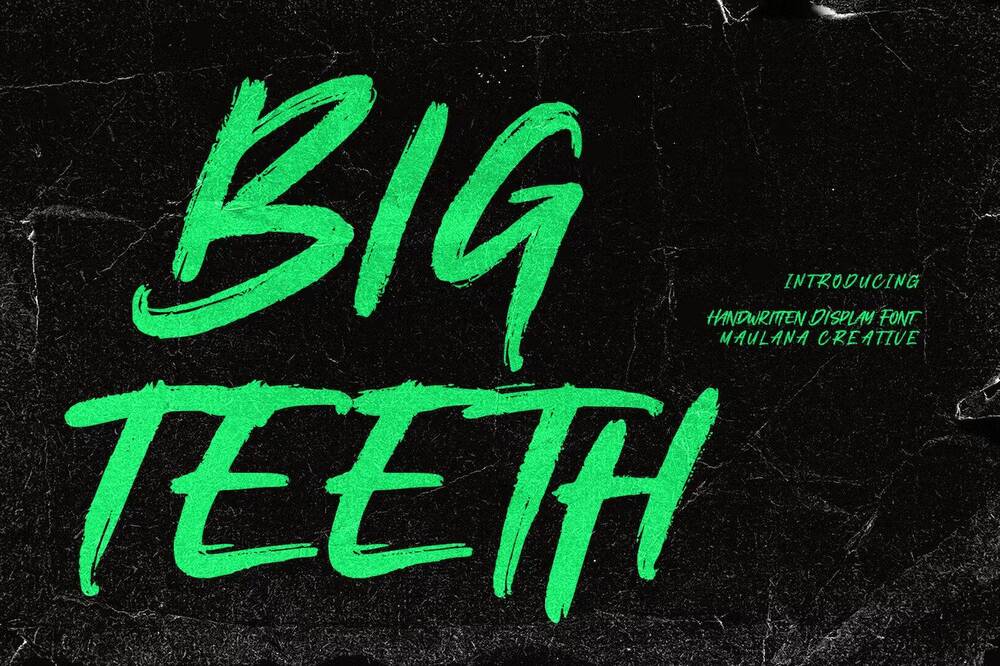
It is a horror vibes handwritten font with slanted medium rough brush stroke, fun character. To give you an extra creative work. Ideal for logo designs, social media, movie titles, books titles, posters, magazines and etc.
Holingston Font
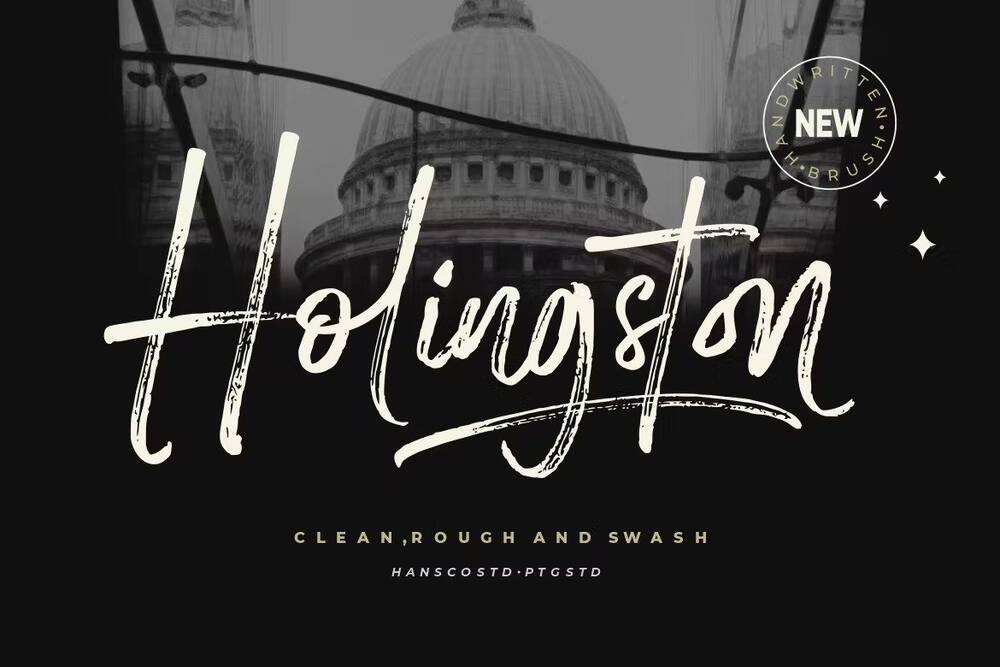
It is a handwritten brush script that is written casual and naturally. Ideal for blog titles, posters, wedding elements, t-shirts, clothing, book covers and etc.
Groshrock – Freestyle Brush
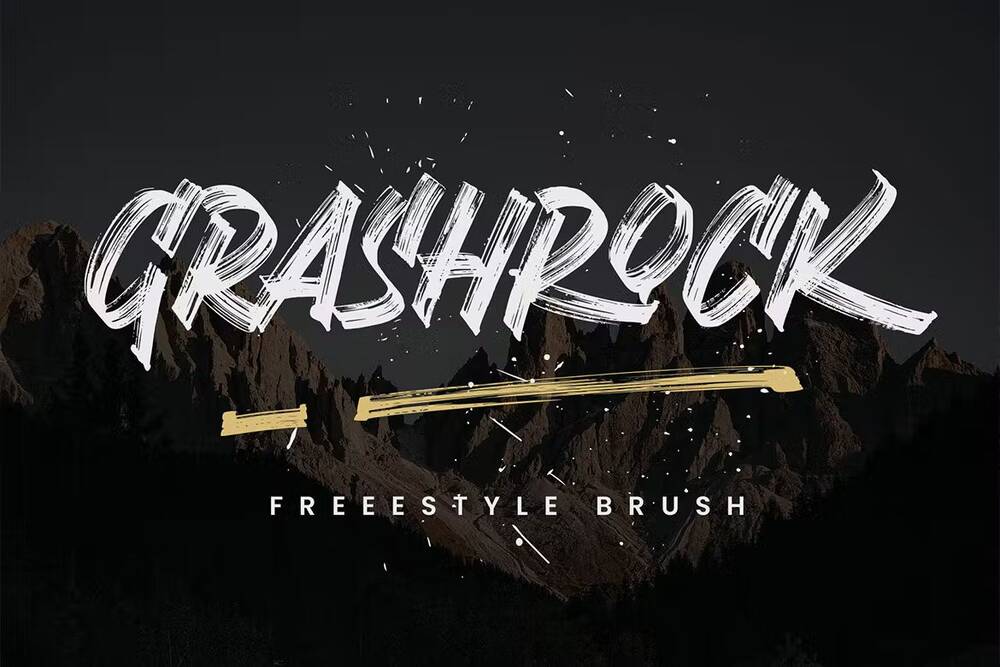
It is a fast font, with an aggressive motion of the brush strokes so good for designs such as shirts, cards, flyers, quotes, logotype, books, decals and etc.
Spyckers Handwritten Brush Font
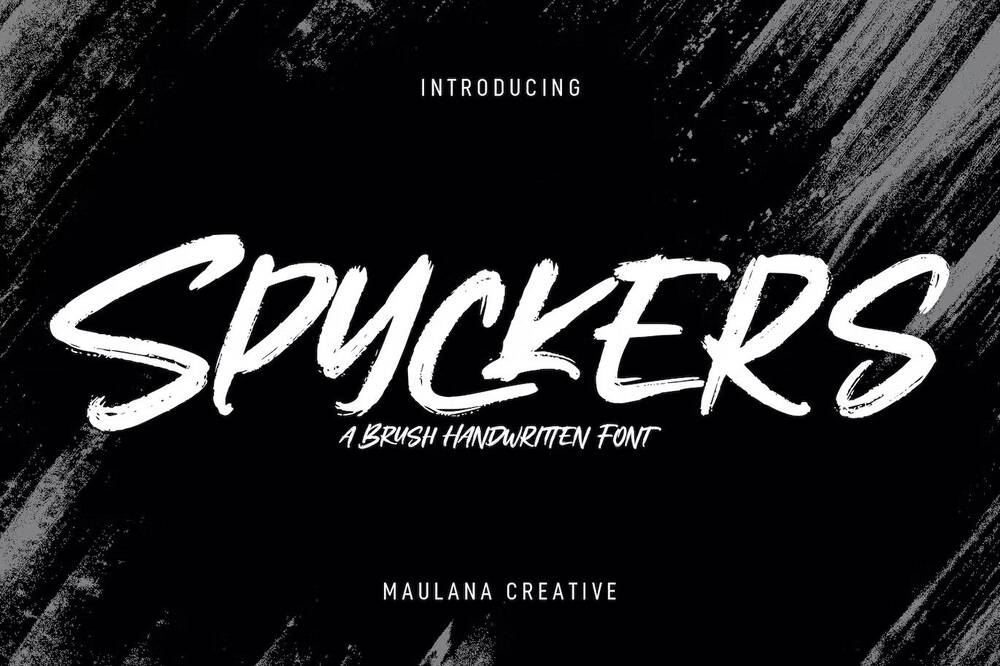
It is an expressive handwritten brush font with bold rough brush stroke, fun character with a bit of ligatures and alternates. So good for posters, covers, titles, fast text and etc.
Street Walks Brush Script Font
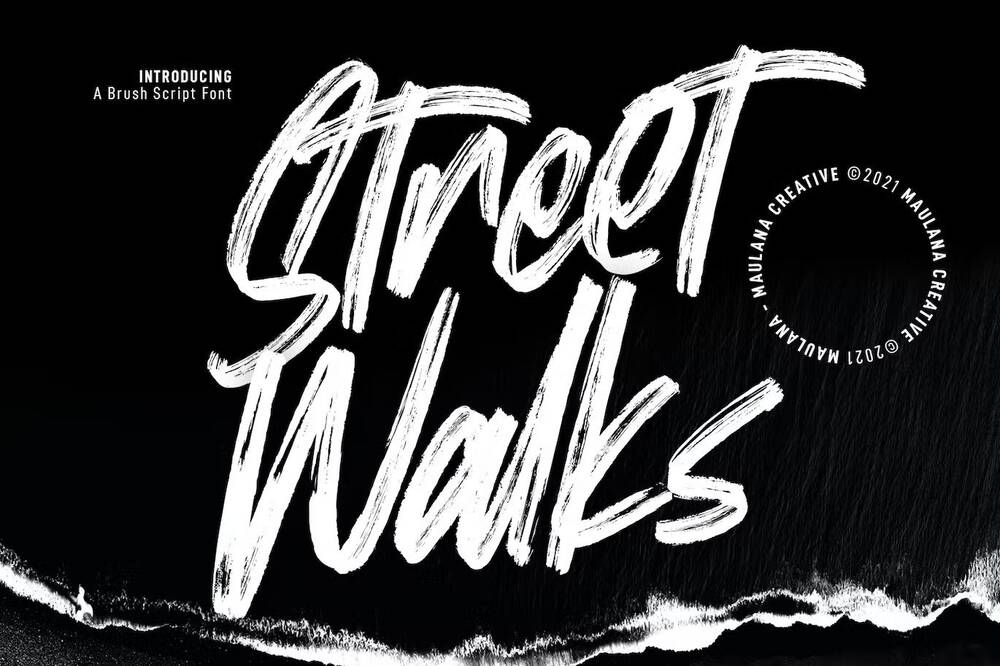
is a handwritten script display font with rough brush stroke, strong character with a bit of ligatures and alternates. To give you an extra creative work. So good for posters, covers, flyers, packaging and etc.
Malela Handwritten Brush Font
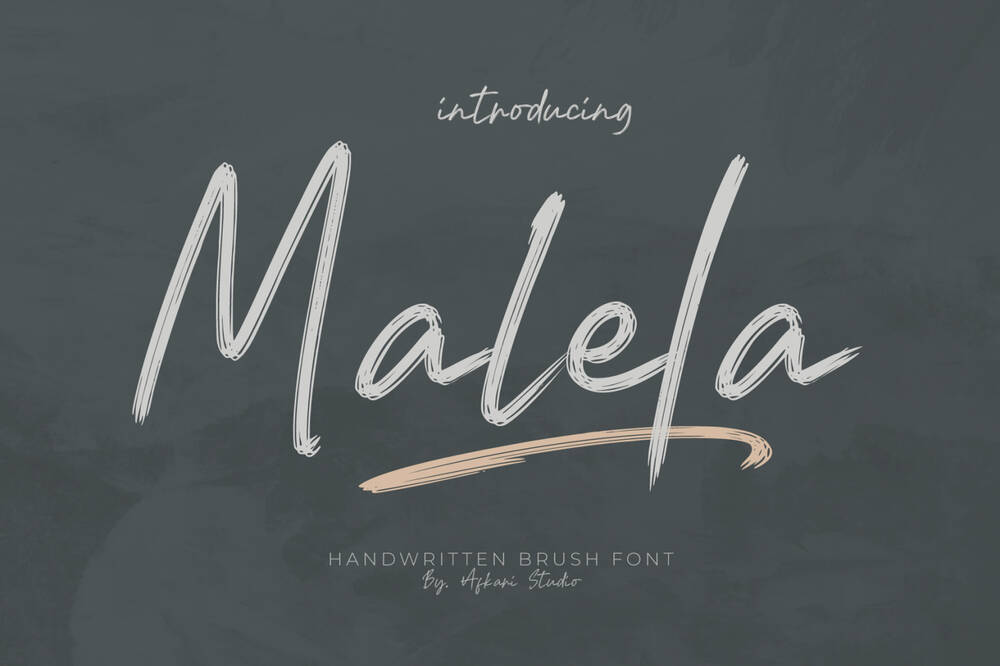
It is a natural handwritten brush font script that makes with natural line handwriting. This font is suitable for any branding of your design needs, wedding invitations, romantic projects and etc.
Superion Brush Font
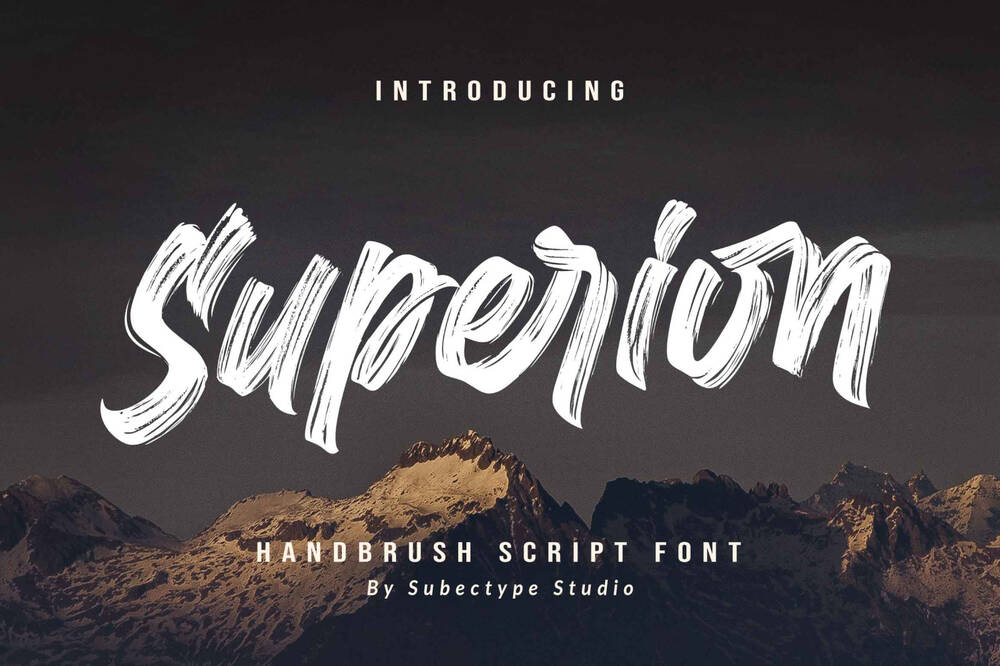
It is a supercharged brush font style, street-wise brush font bursting with energy. With extra attention to quick strokes and sharp details. This font is perfect for challenging jobs, titles, t-shirts, websites, hoodies, clothing and etc.
Brush King / Brush Font
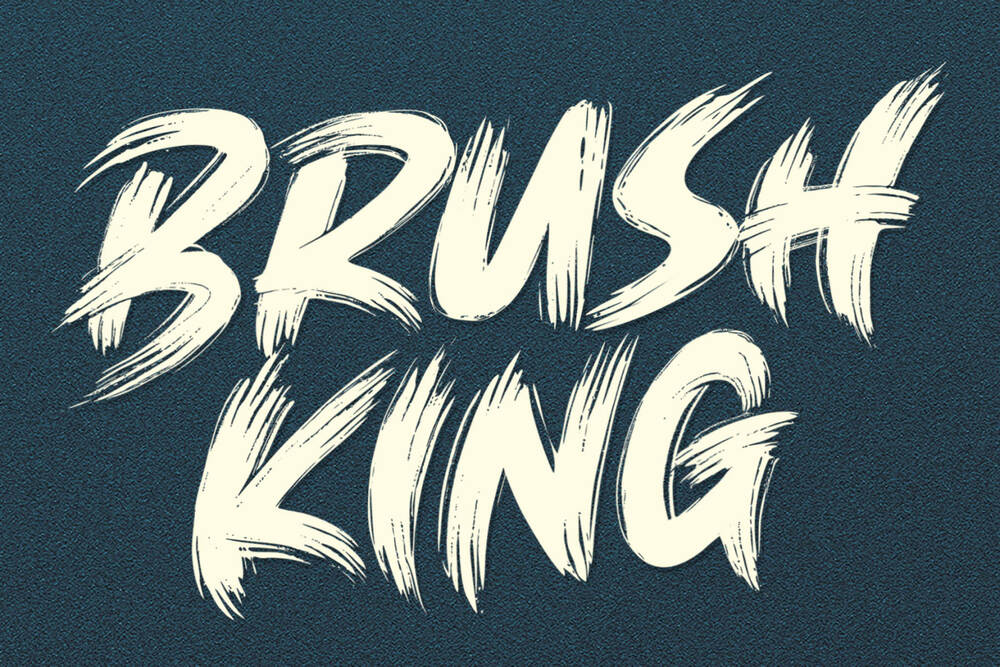
It is a supercharged brush font style, street-wise brush font bursting with energy. With extra attention to quick strokes and sharp details. Ideal for logos, apparel, quotes, product packaging and etc.
Free Stiverx Font
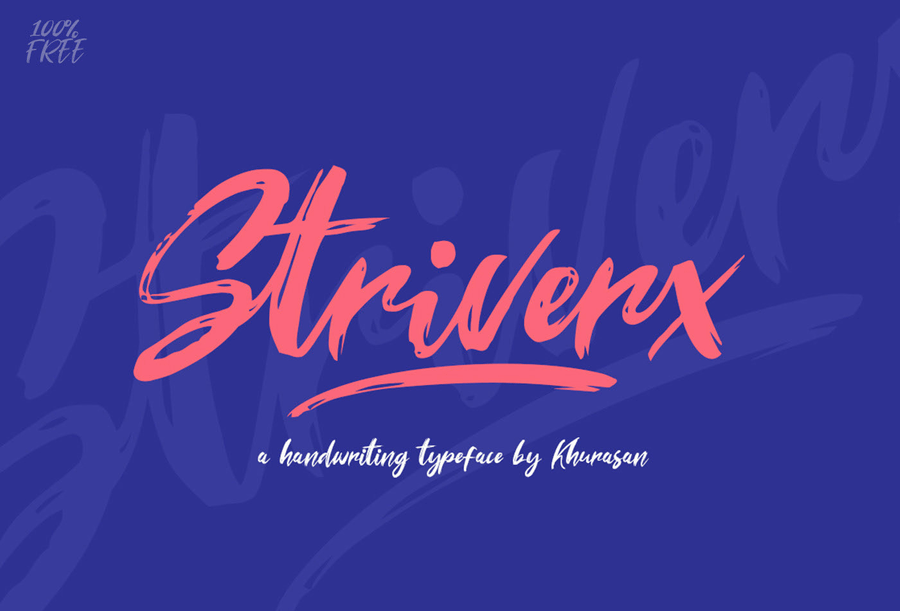
It is an eye-catching brush script font. It contains uppercase and lowercase letters, numbers, symbols and supports multilingual. Stiverx is ideal for ads, logos, branding, headlines, quotes, posters and etc.
Free Necks Font
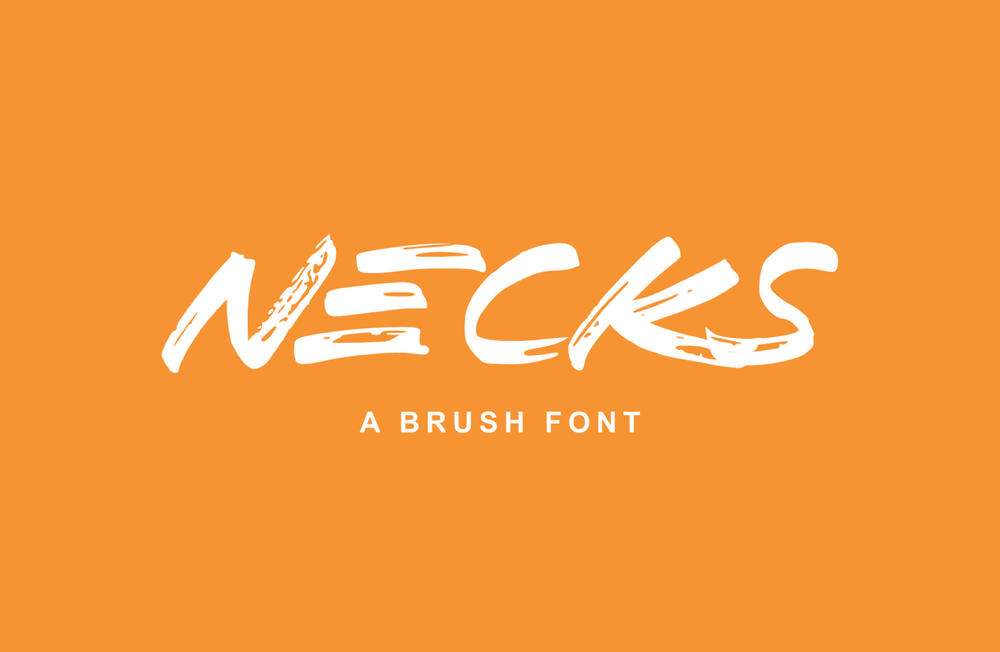
It is a free bold hand lettered display font. This highly legible brush font is great for a variety of creative projects such as posters, covers, titles, flyers, packaging and etc.
Free Andria Styluz Script Font
It is a free handwritten brush font for your design needs. Perfect for display, greeting cards, branding materials, business cards, quotes, wedding cards, logos, stationery, online marketing, magazines and etc.
Free Raventame Brush Font
It features an original handwritten brush style. It is ideal for boutique brands, photography logos & quotes, magazines, posters and etc.
Free Keypass Handbrush Font
It is a bold and innovative font which combines attractive curves with a fresh urban edge. Ideal for book covers, website headers, logos, flyers, clothing, branding and etc.
The Revengers Font
A Script brush font with authentic dry brush strokes drawn on paper. Perfect for logo designs, poster designs, social media, typographic quotes and etc.
Clawmark a Strong Bush Font
A powerful hand painted font you’ve been looking for. Each character is carefully crafted until the result is perfect. So good for story books, illustrations, comic books, t-shirts, posters, greeting cards, logos and etc.
Diswatika Font
It is a textured brush font with exclusive style that is great for vintage, old style, wedding, movie, game, magazines and etc.
Cashking Brush Script Font
It is an expressive brush script font with regular rough brush stroke, fun character with some of ligatures and extra swash. Perfect for posters, flyers, magazines, covers and etc.
Elemantors Brush Stroke Script Typeface
Give your designs an authentic handcrafted feel.This font is perfectly suited to signatures, stationery, logos, typography quotes, magazines or book covers.
Strong Hold Brush Font
A handwritten Brush typeface with unique glyphs and powerfull. It is perfect for posters, blogs, websites, t-shirts and any other cool projects.
Qillsey Einstein – Handbrush Font